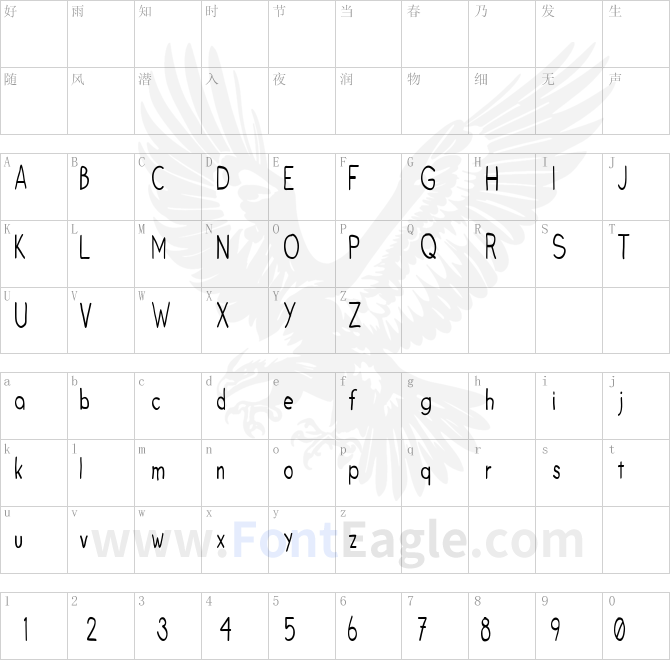
Fruit-Sale is a great font, widely used in graphic design, single-page menu design, poster design and other fields, and is deeply loved by designers.Fruit-Sale download.